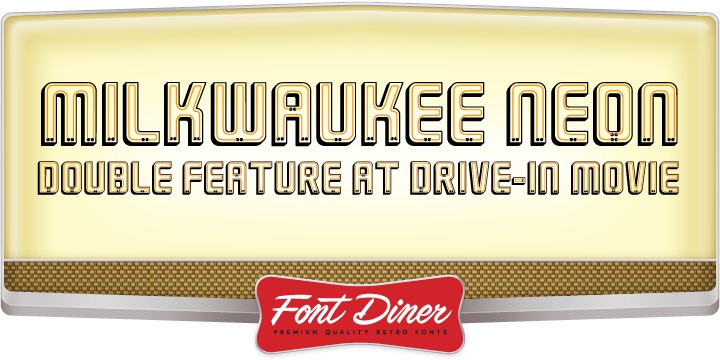
Can't you hear the buzzing already? It’s Milwaukee Neon, the buzzin' cousin to the original Milwaukee font and it comes with two weights, one for the sign and one for the neon to build your own inspired signs!